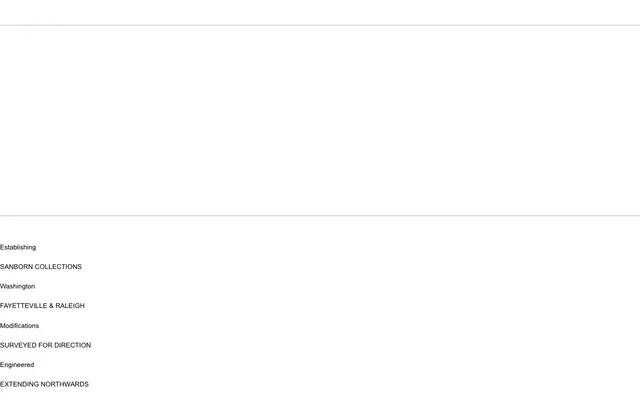
Staten Sans
A variable grotesque with an unusually wide range of widths, from XXX Compressed to XXX Expanded, across nine weights with oblique and reverse variants.
Staten Sans covers an extensive matrix of styles combining nine weights, eight width grades and oblique cuts, with additional reverse variants for display use. The family ships as a variable font with weight, width and italic axes, and 484 glyphs covering over 220 languages. Stylistic sets SS01 through SS05 offer alternate characters for further customisation.
The breadth of widths from XXX Compressed to XXX Expanded, the oblique rather than true italic, and the reverse variants point to a grotesque tradition. The variable font axes covering weight, width and italic confirm a contemporary grotesque with broad stylistic range.